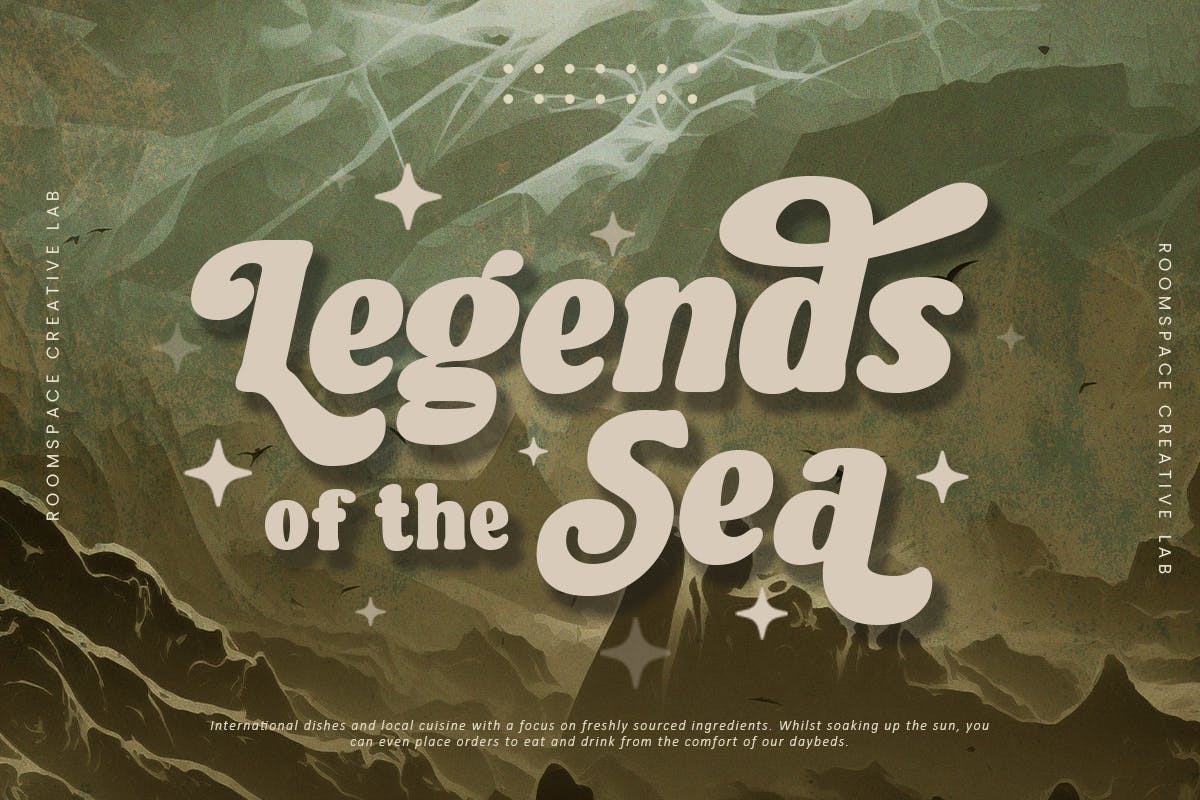
Legends of the Sea - Rounded Vintage Font
Legends of the Sea - Rounded Vintage Font Free Download offers a captivating journey back in time with its unique, rounded design. While you can download this font for free for testing purposes, you must purchase it for commercial use to unlock its full potential. This versatile typeface is perfect for a wide range of projects, including branding, logo design, product packaging, t-shirts, posters, and vintage-inspired social media graphics. What makes this font so exciting is its ability to evoke a sense of adventure and nostalgia, combining the charm of classic typography with a soft, approachable feel. The Legends of the Sea font family is available in multiple styles, including Regular, Bold, and Rough, providing you with a complete toolkit to create stunning, cohesive designs.
This isn't just another vintage font; it’s a design asset crafted with attention to detail. The rounded terminals and clean lines give it a modern twist, while the subtle imperfections in the Rough version add an authentic, handcrafted feel. Its unique aesthetic makes it stand out from the crowd, ensuring your designs grab attention and tell a compelling story. Whether you’re designing for a nautical-themed brand, a retro-inspired cafe, or a creative project that needs a touch of timeless charm, this font is the perfect choice. The clean, legible forms of the Regular and Bold weights ensure readability at various sizes, making it suitable for both headlines and smaller body text.
The inspiration for Legends of the Sea is clear: the romantic and adventurous spirit of maritime history. It’s a tribute to classic sign-painting, old-world maps, and the rugged beauty of the open ocean. This font is more than just letters; it’s an experience. The carefully balanced letterforms and consistent curves create a harmonious flow, making any text easy on the eyes. Use it to craft powerful headlines that draw your audience in or to add a touch of personality to your brand identity. The included ligatures and alternate characters expand its creative possibilities even further, allowing you to customize your text and create truly unique layouts.
Don’t miss the opportunity to elevate your design projects. The Legends of the Sea - Rounded Vintage Font Free Download gives you the chance to experiment and see firsthand how this typeface can transform your work. Once you’re ready to move beyond the testing phase and use this font commercially, a simple purchase will grant you all the rights and features you need. Dive into a world of vintage charm and modern appeal with a font that’s designed to make a lasting impression. Its versatility and timeless style make it a valuable addition to any designer’s toolkit, promising to bring a unique character to every project you undertake.